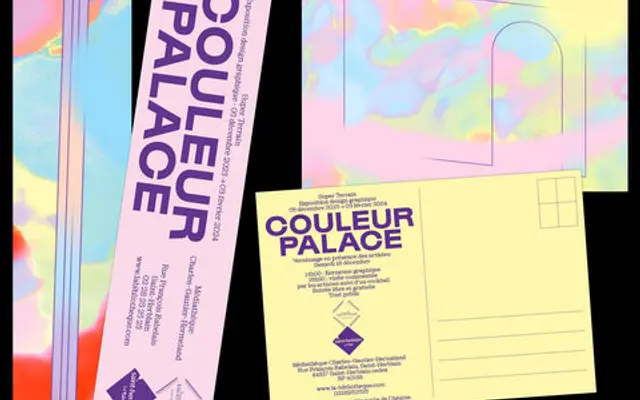
Gustavo
Lift Type · Romain Oudin · 2020
A slightly wide geometric sans by Romain Oudin, built across five weights with italics and a set of pictograms, geared towards editorial and branding work.
Designed by Romain Oudin and started in 2018, it was released in 2020 as a complete family of ten styles spanning Thin to Bold with matching italics. The design sits at the calmer end of geometric sans, with a touch of personality intended to complement Lift Type's broader catalogue. A generous pictogram set, circled numbers, arrows and multiple stylistic sets extend its utility across sports, editorial and identity applications.
Described explicitly as geometric and slightly wide shaped sans serif; clean construction with open forms and moderate personality consistent with geometric grotesque classification.